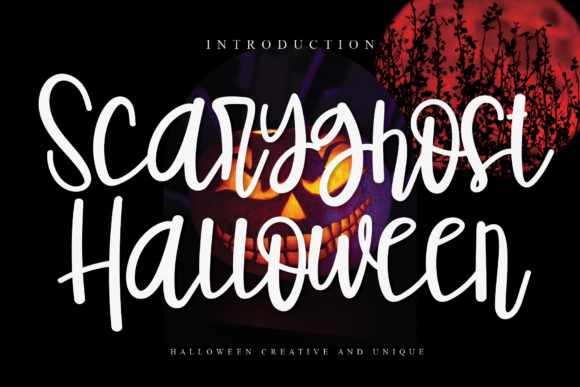
Scaryghost Halloween Font
About Scaryghost Halloween Font
Scaryghost Halloween is a chic, refined script font that emanates sophistication and elegance. Its stylish alternates and ligatures make this font the perfect match for any project.